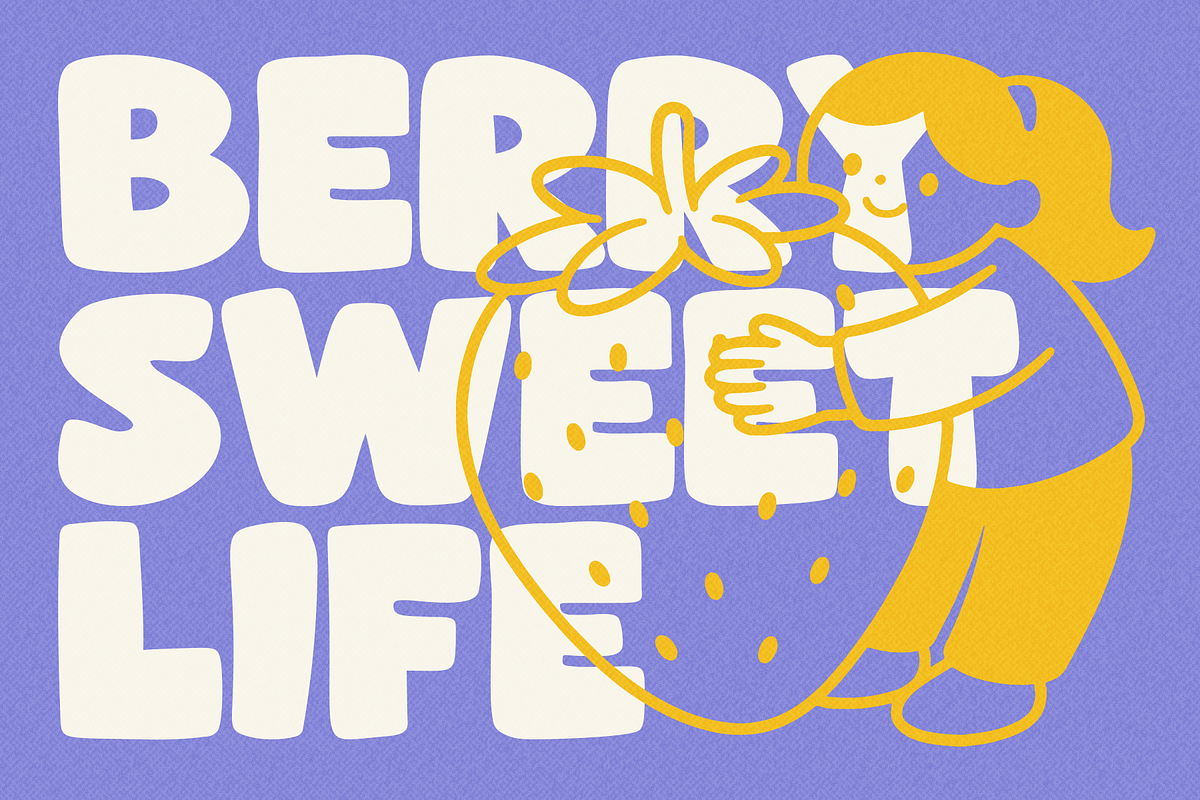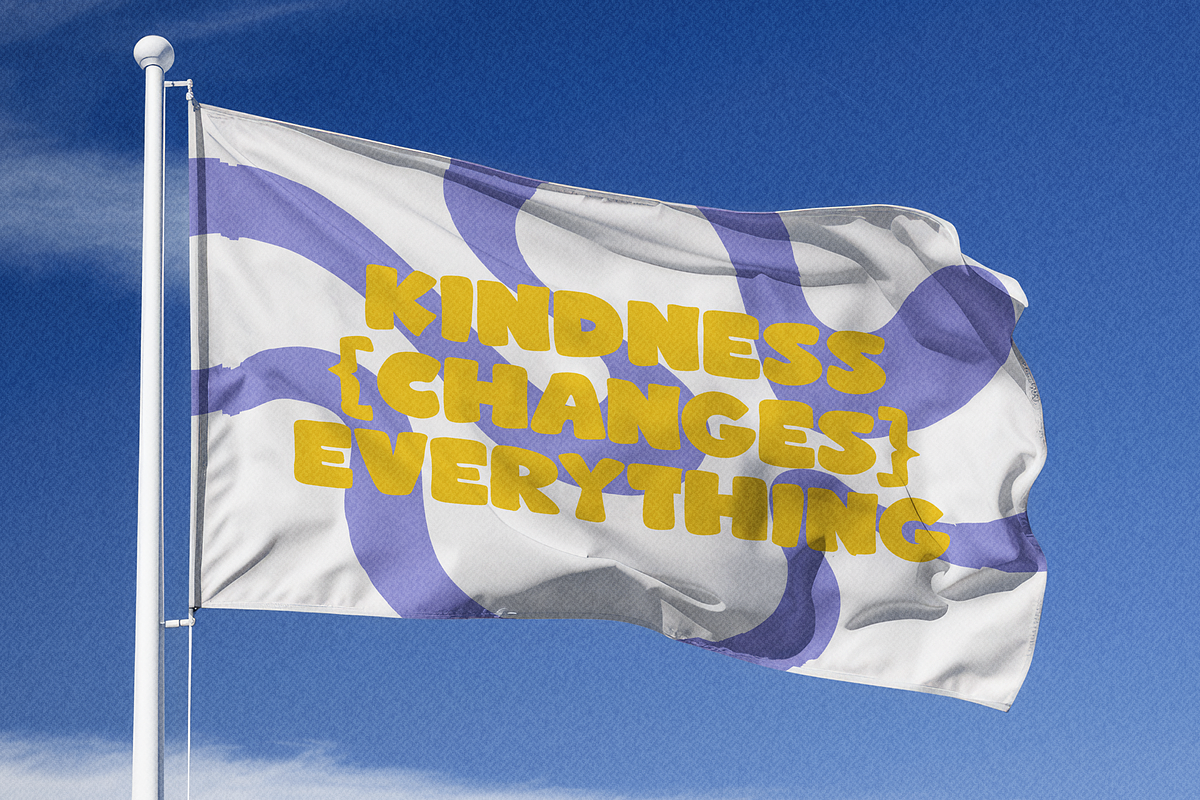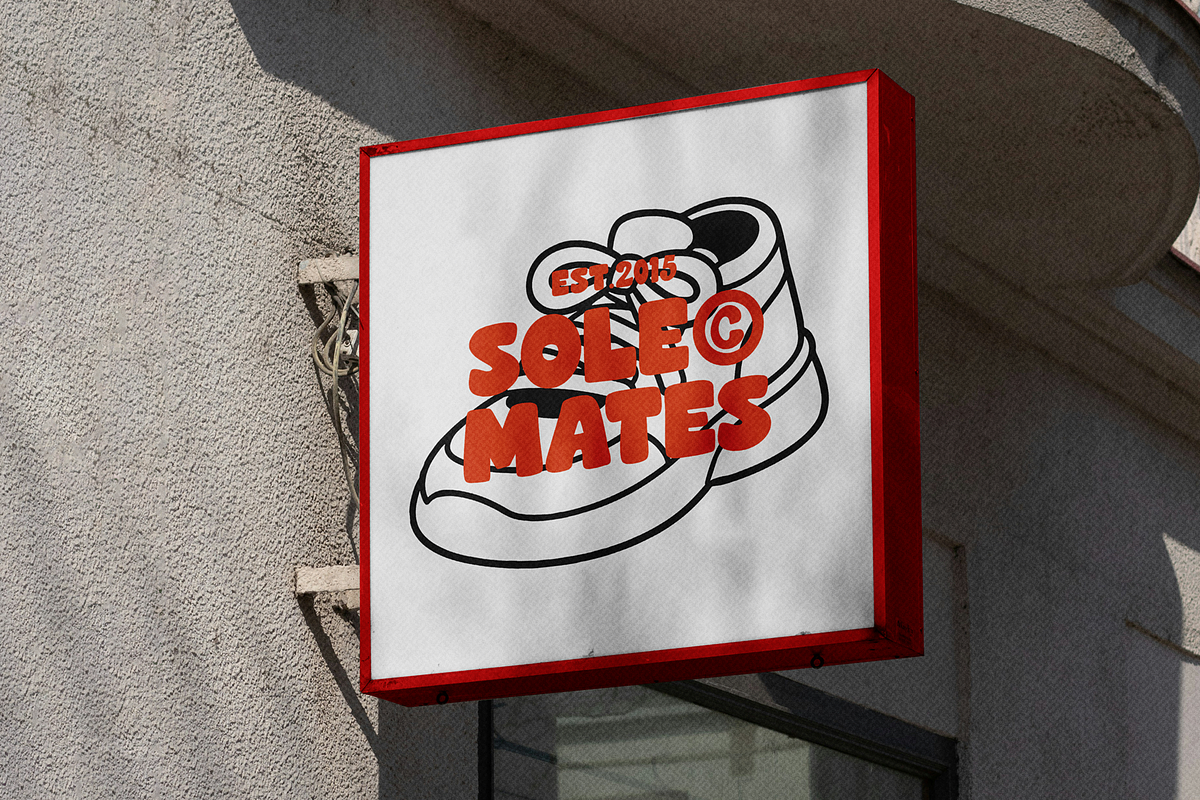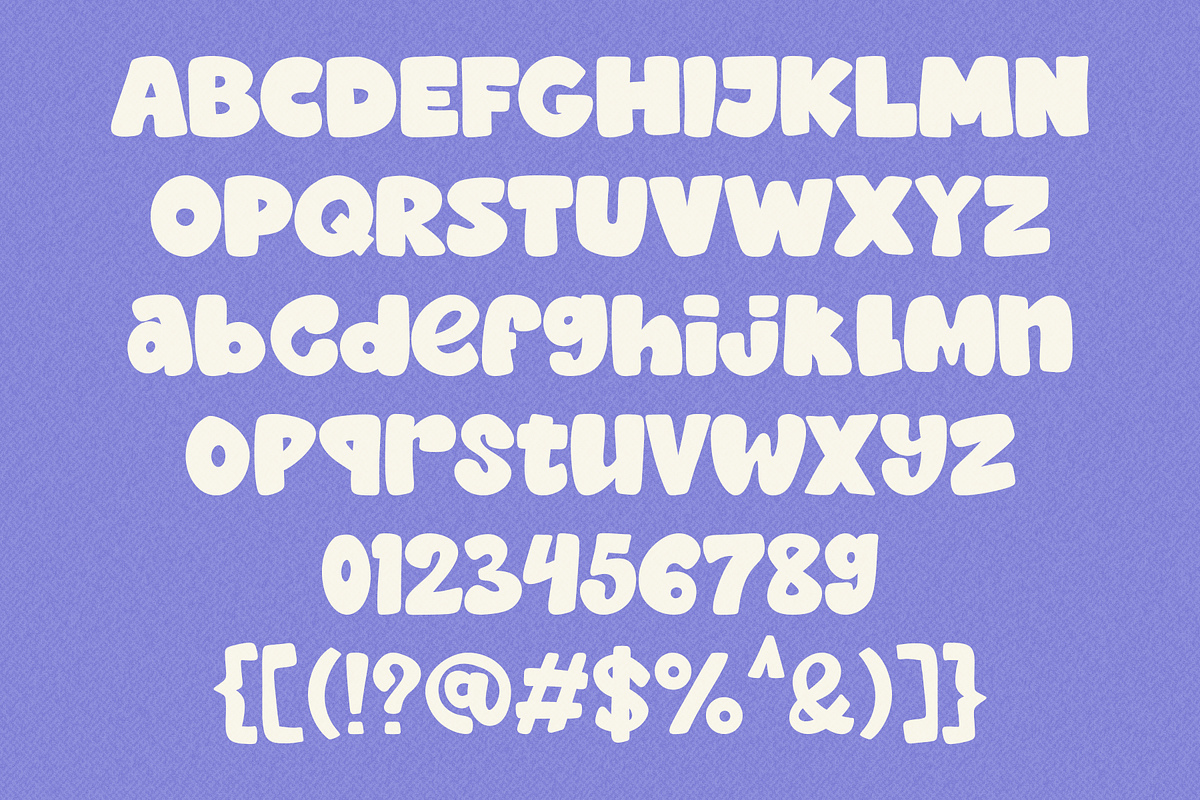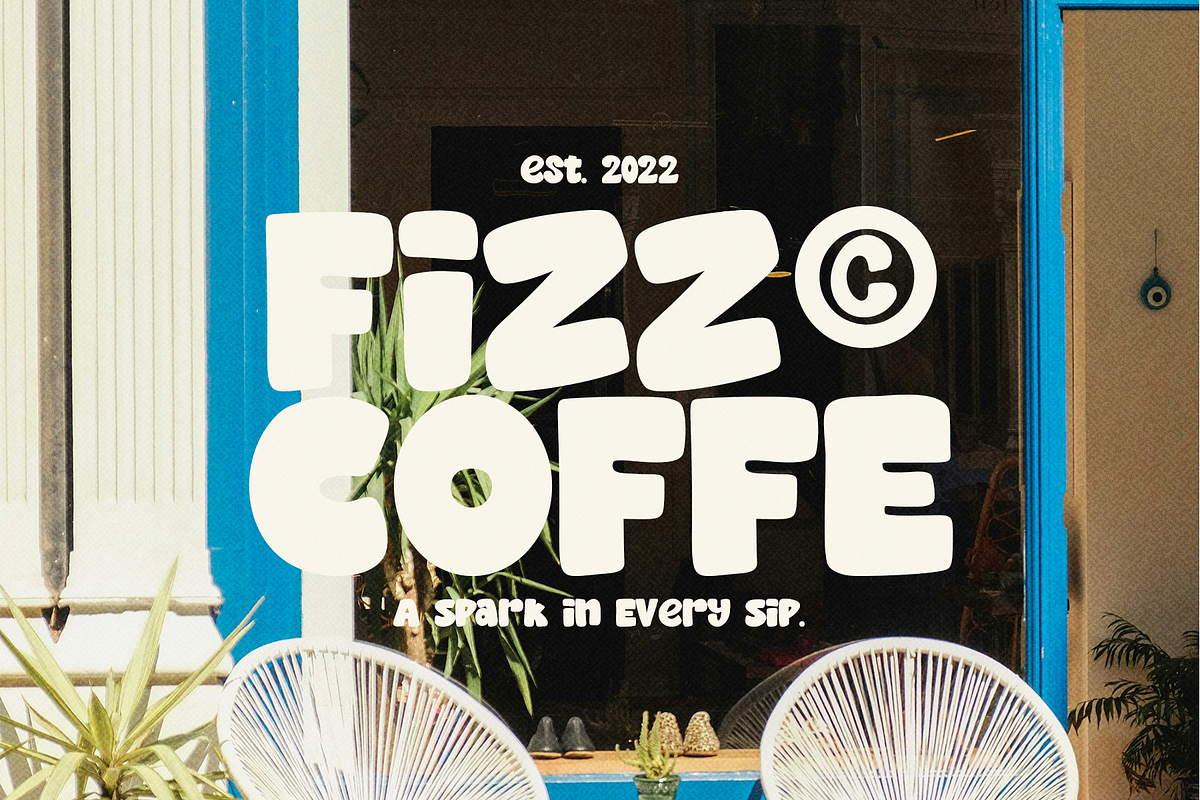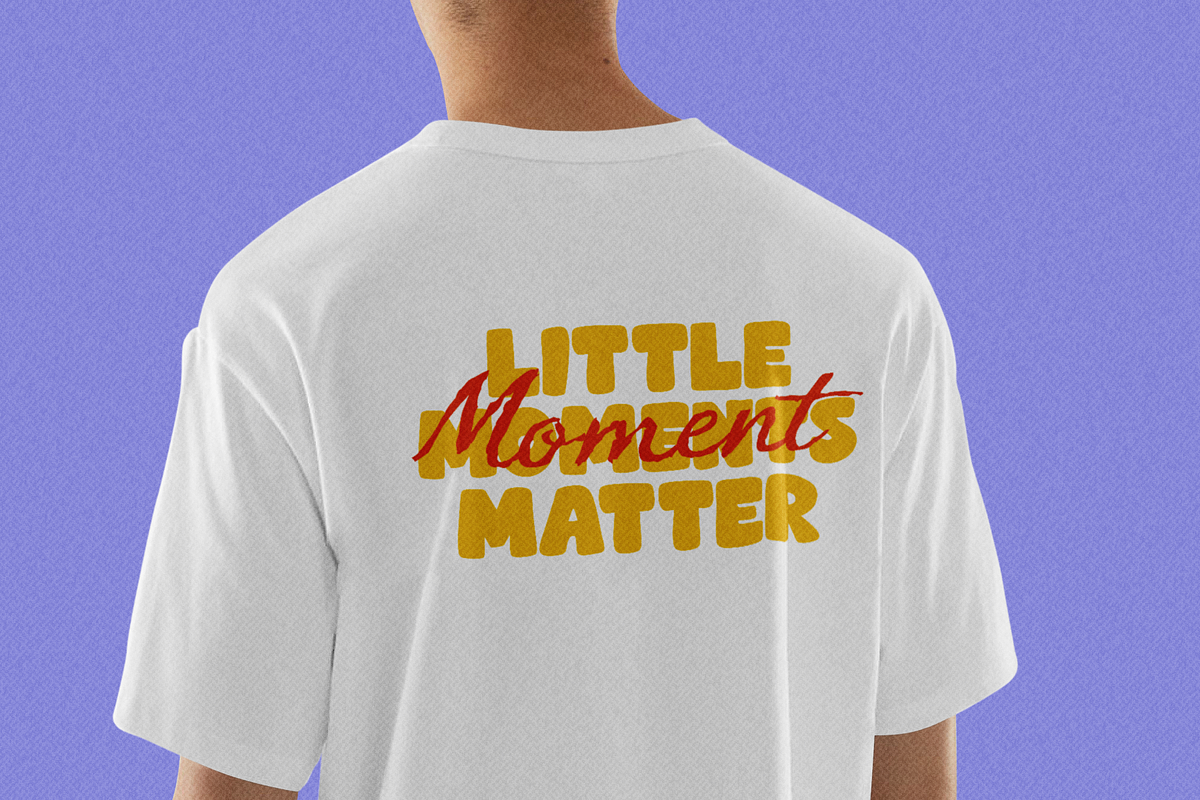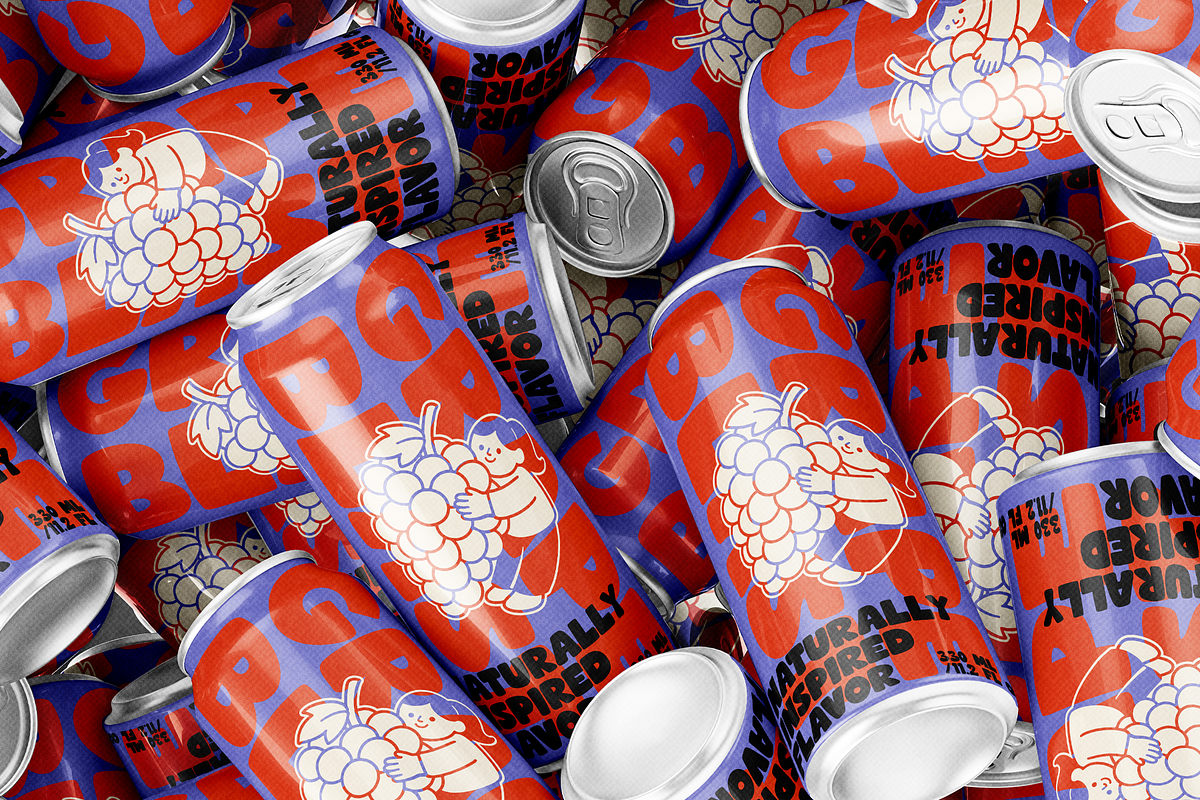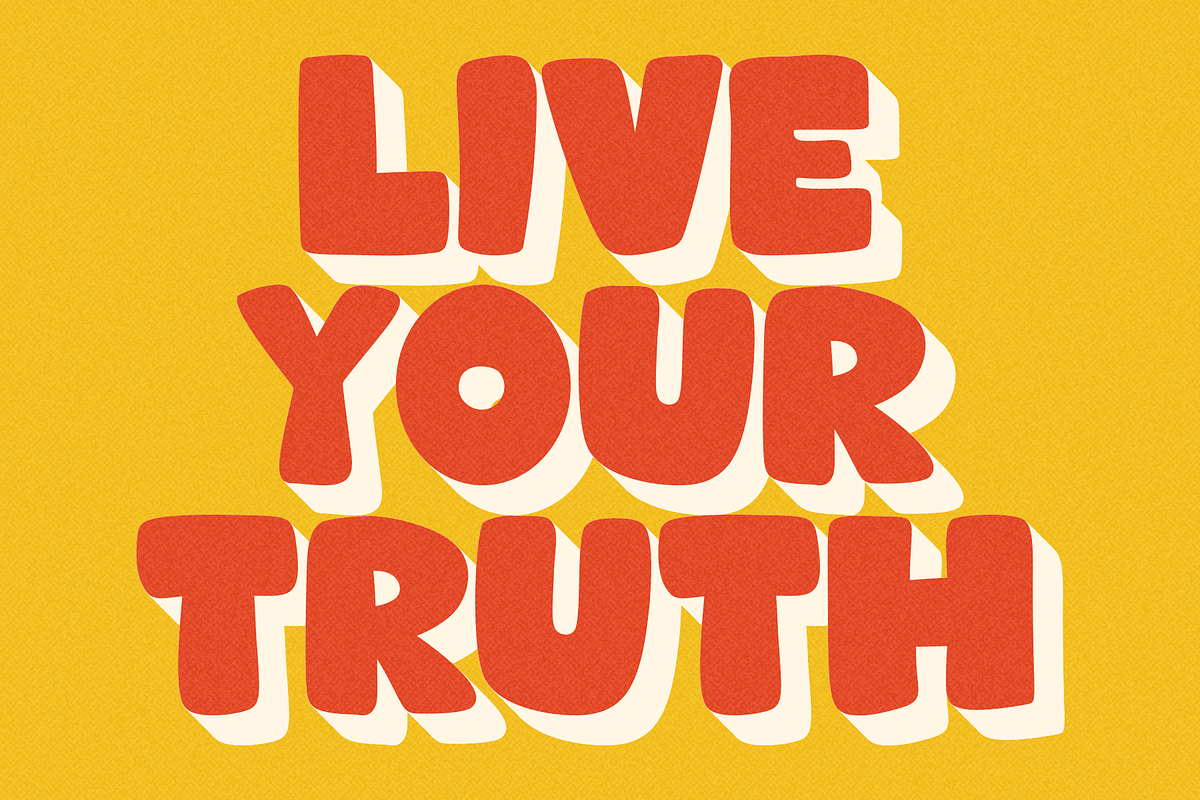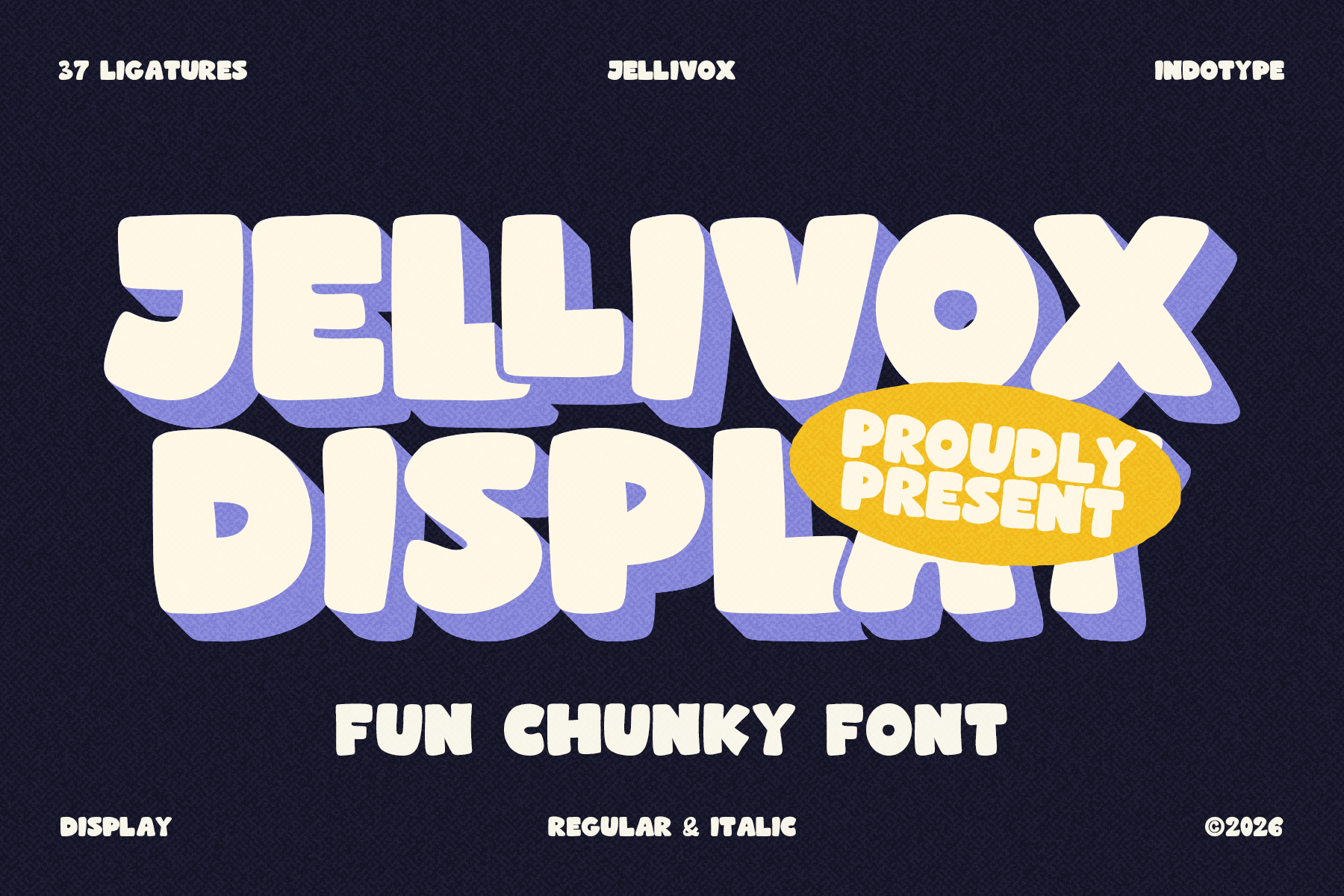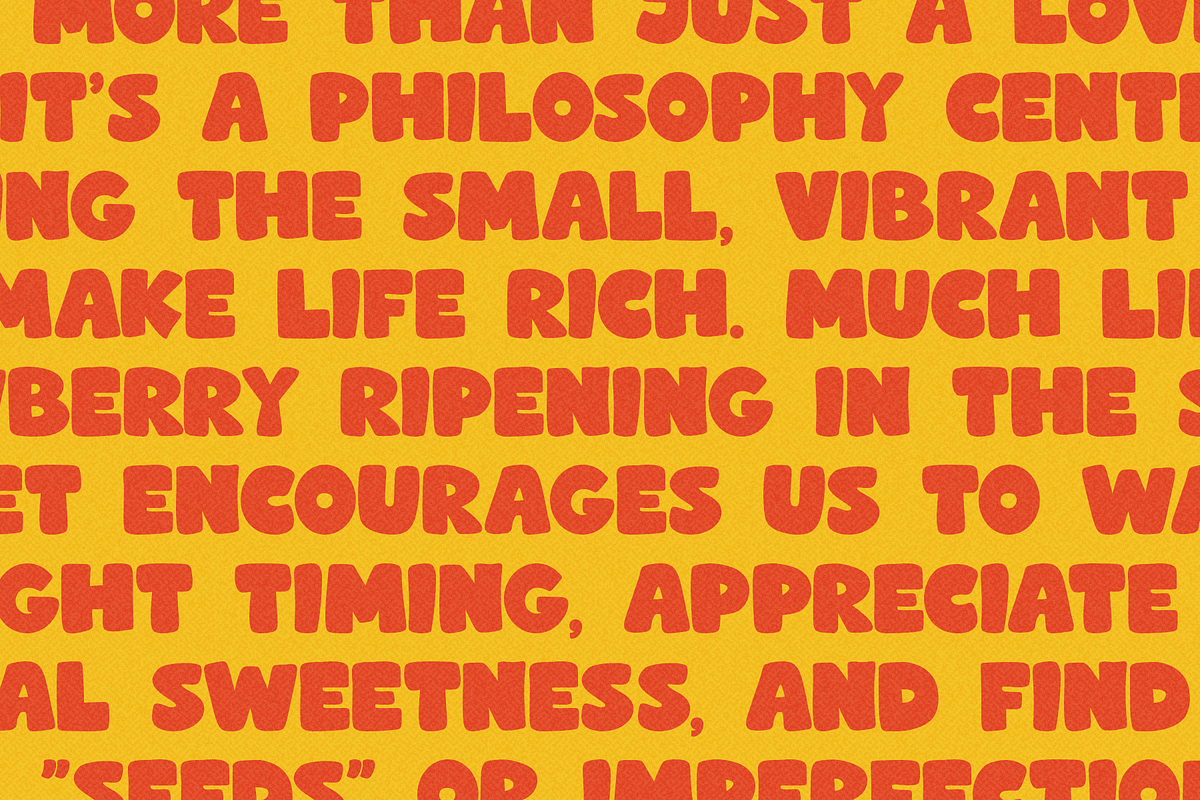
JELLIVOX - Fun Chungky Font
Jellivox is a fun, chunky display typeface bursting with personality, playfulness, and visual energy. Designed by Indotype, Jellivox takes the all-caps display genre and inflates it with joyful, rounded forms that feel simultaneously bold and approachable. Its supersized letterforms — thick, pillowy, and tightly packed — evoke the tactile satisfaction of bubble letters, retro toy packaging, and the exuberant graphics of youth culture. Jellivox doesn't just occupy space; it owns it.
- Design Characteristics
The defining trait of Jellivox is its generously rounded, inflated stroke structure — every curve swells outward with a soft, almost three-dimensional presence. The letterforms sit at maximum weight, with minimal counter space that gives the typeface its dense, block-like energy. Despite their mass, the rounded terminals and smooth curves keep the overall feeling light and inviting rather than heavy or aggressive. The Italic variant introduces a forward-leaning dynamic that adds motion and urgency — perfect for titles, slogans, and anywhere you want to inject kinetic energy into the layout. The shadow/dimensional treatment visible in the showcase demonstrates how powerfully Jellivox stacks with layered color effects, making it a natural choice for designers who love retro-dimensional type styling. With 37 ligatures built into the font, Jellivox goes beyond standard glyph coverage to offer creative letter combinations that enhance the playfulness and visual flow of set text — giving designers expressive typographic options straight out of the box, without manual adjustment.
- Styles & Technical Features
Jellivox ships in two styles — Regular and Italic — both designed at display weight for maximum impact. The 37 OpenType ligatures allow common letter pairs to merge into custom combined glyphs, adding extra visual flair. The all-caps design philosophy ensures consistent impact and strong block-text compositions across headlines, logos, and short-form copy.
- Ideal Use Cases
Jellivox is built for designers who need to make an instant, joyful impression. It excels across: children's book covers and educational content, toy and game packaging design, youth apparel and streetwear graphics, mobile app and game UI headlines, social media content for lifestyle and entertainment brands, music and podcast cover art, food and beverage branding for fun-forward products, festival and event posters, YouTube thumbnails and streaming graphics, and novelty merchandise. Its bold presence makes it particularly effective for thumbnail design, where instant legibility at small sizes and eye-catching visual weight are critical to click-through performance.